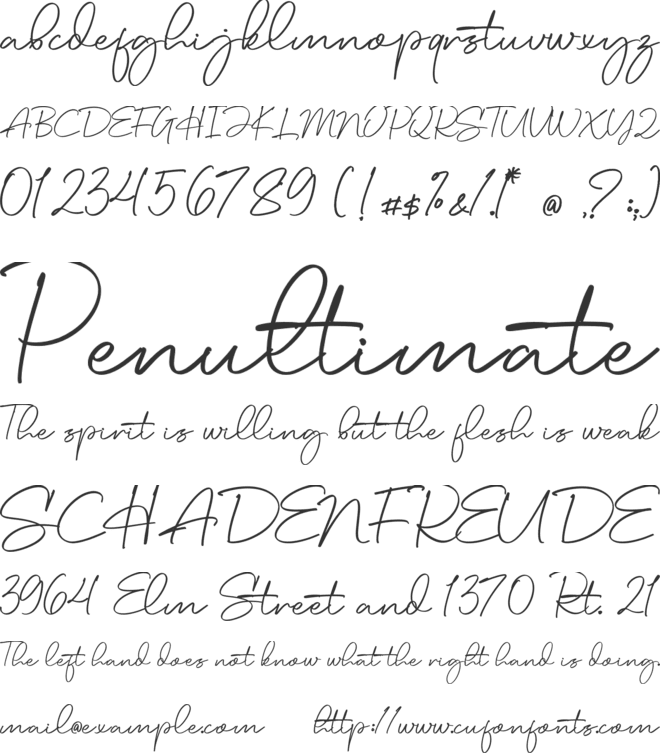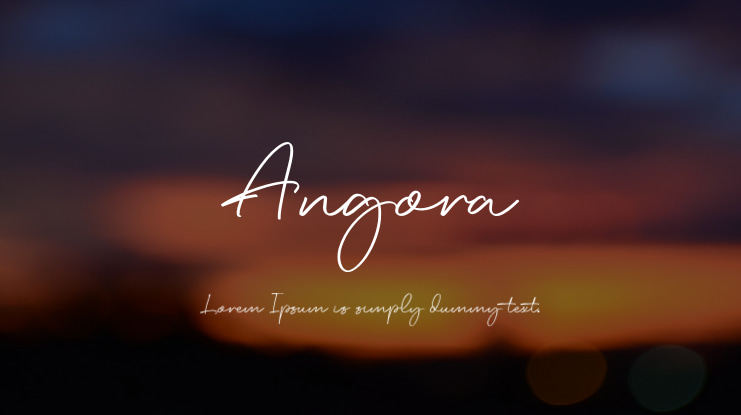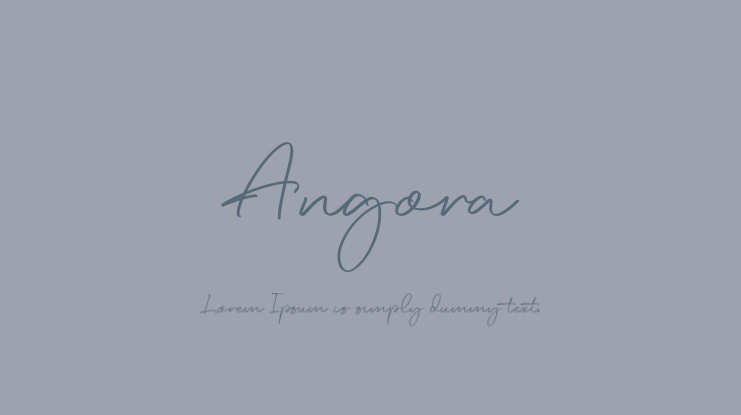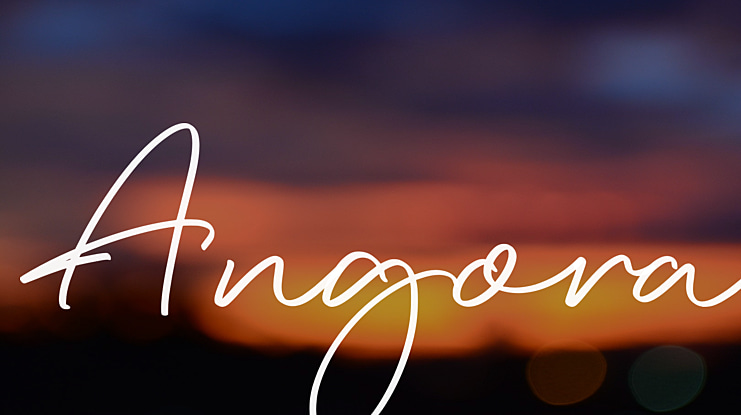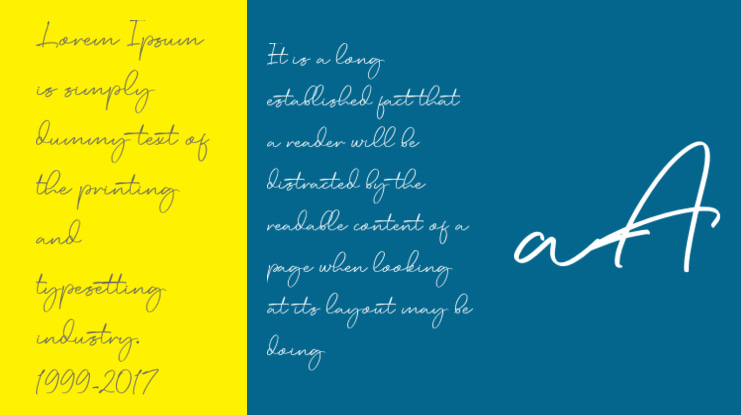
Angora Font
Angora! A handwrittent signature font. Angora font is suitable for branding, logotype, apparel, T-shirt, Hoodie, product packaging, quotes, flyer, poster, advertising, etc.
1. Uppercase and lowercase characters
2. Multilingual support.
3. Features: ligatures